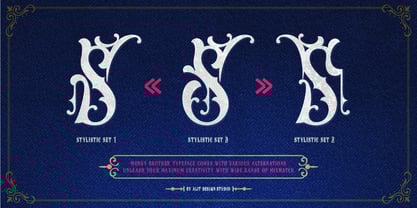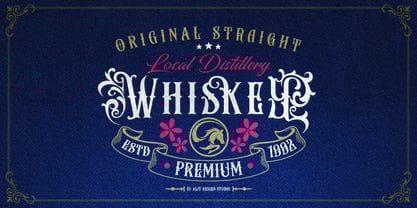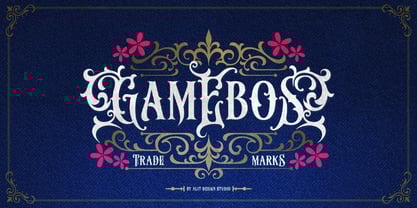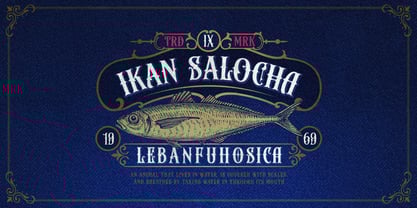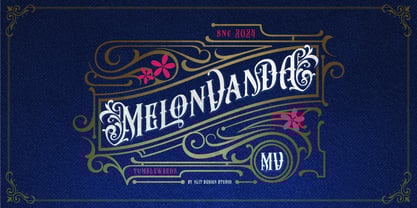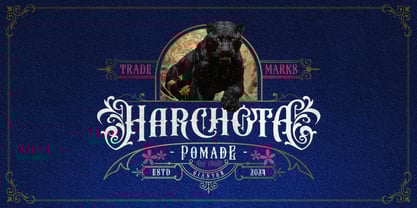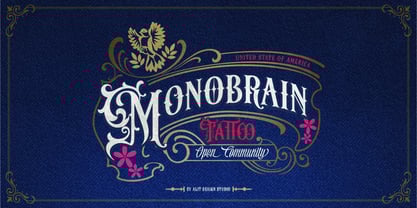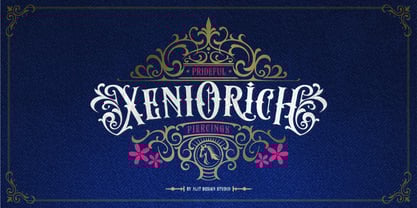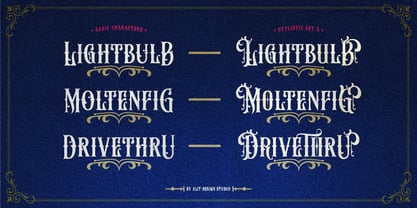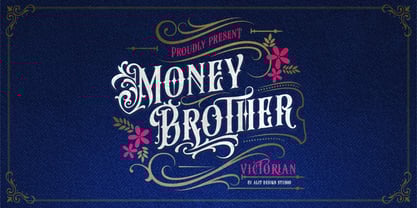
Money Brother
Money Brother Victorian Typeface – An Opulent Tribute to the Victorian Era
Step into the elegance of a bygone era with the Money Brother Victorian Typeface. This meticulously crafted font combines the charm of classic Victorian serifs with intricate, elegant ornaments that evoke a sense of sophistication and luxury in any design. Perfect for those looking to add a touch of vintage class to their projects, Money Brother is a versatile font that boasts a wealth of features.
Key Features:
• 819 Characters: With an expansive set of 819 characters, Money Brother offers exceptional design flexibility, ensuring you have the perfect glyph for every need.
• Alternate Characters: Choose from a variety of beautifully crafted alternates to create a unique and tailored look.
• Ligatures: Connect letters seamlessly with elegant ligatures, enhancing readability and style.
• Swashes: Add dramatic flourishes with graceful swashes, bringing a timeless elegance to your typography.
• Multilingual Support: With extensive language support, Money Brother is suited for global designs, making it an ideal choice for international projects.
Ideal for everything from logos, packaging, and signage to invitations, editorial design, and branding, Money Brother Victorian Typeface brings a sense of history and refinement to every word. Embrace the elegance of the Victorian era and make your designs unforgettable.